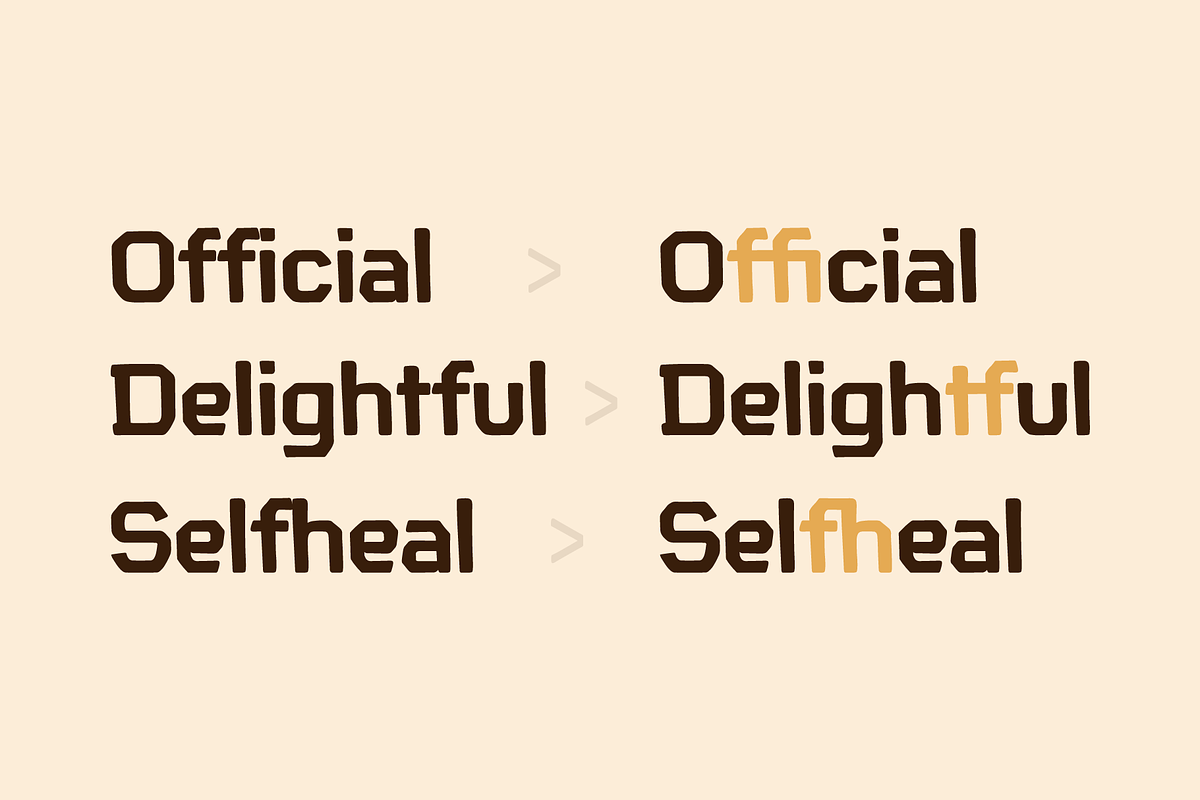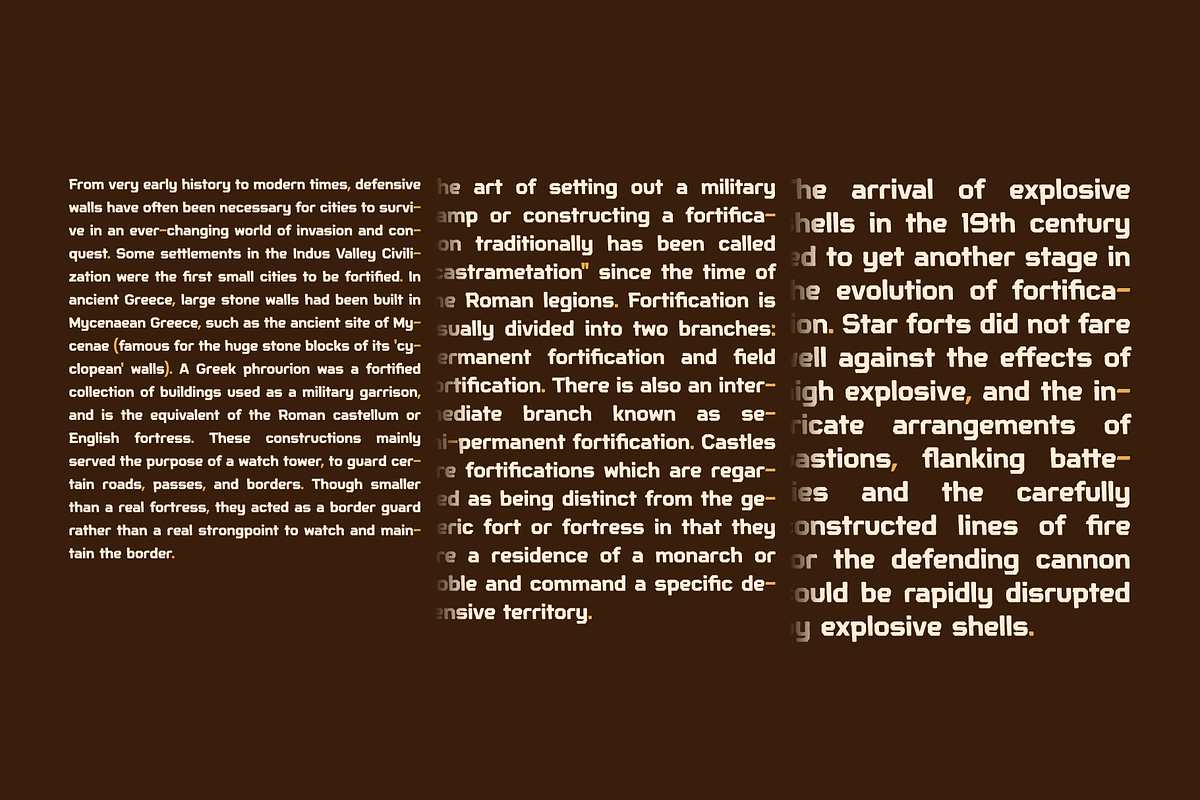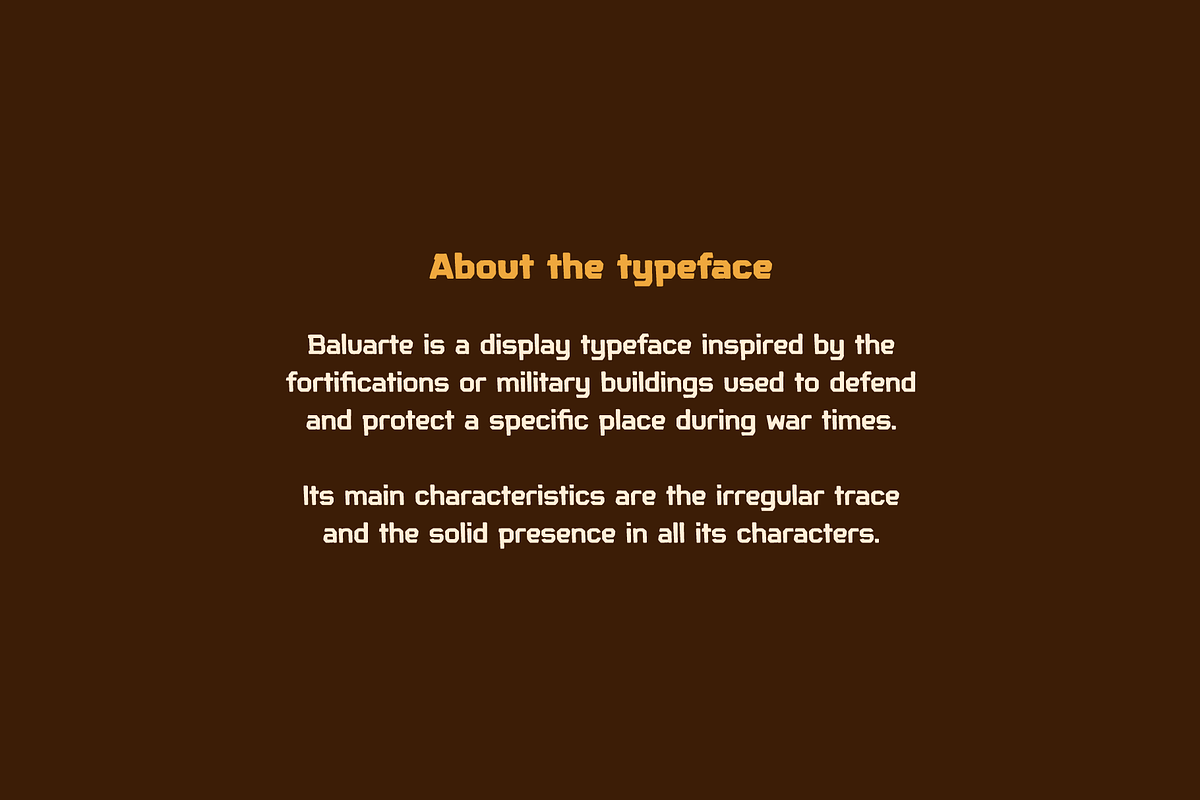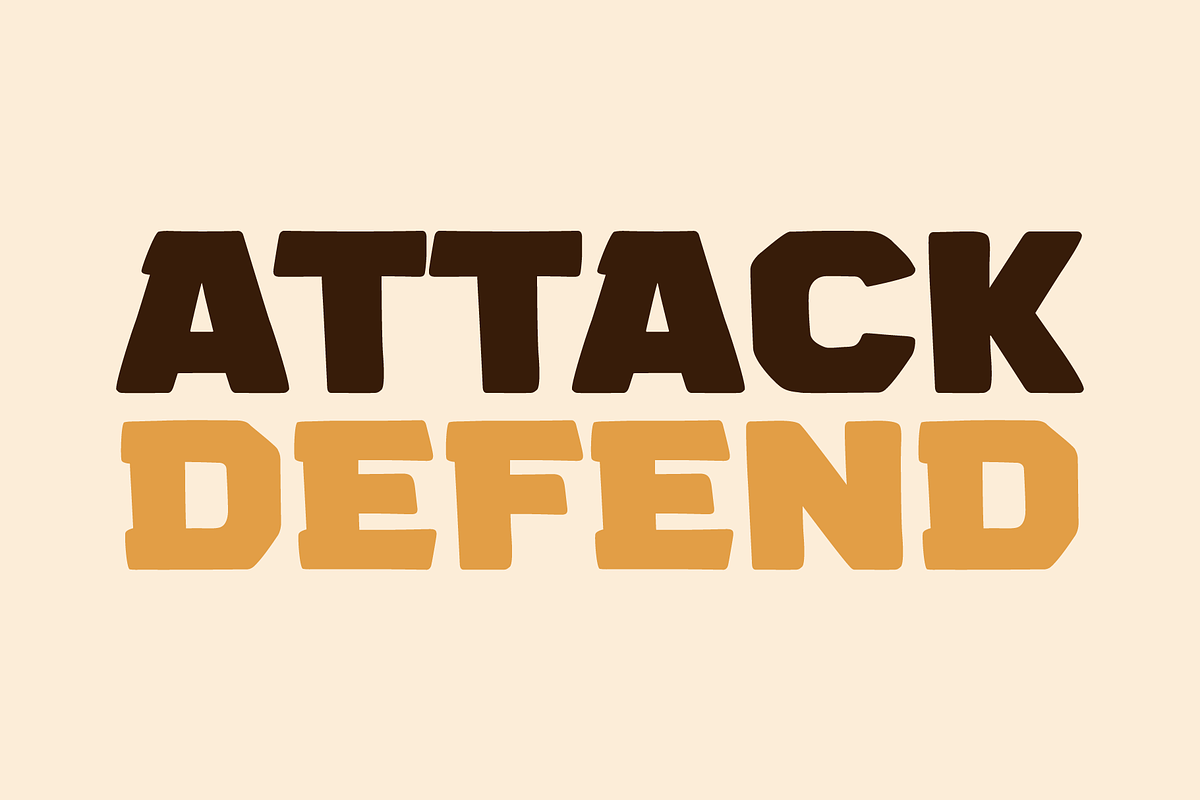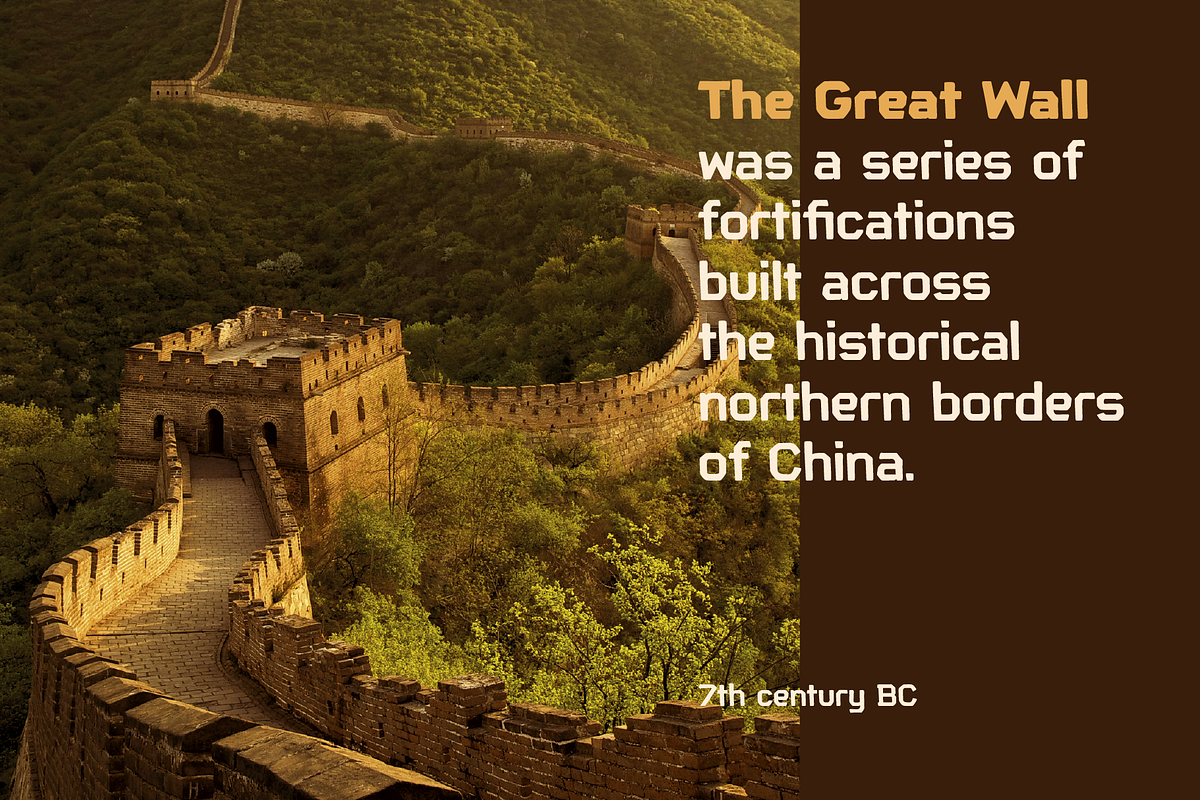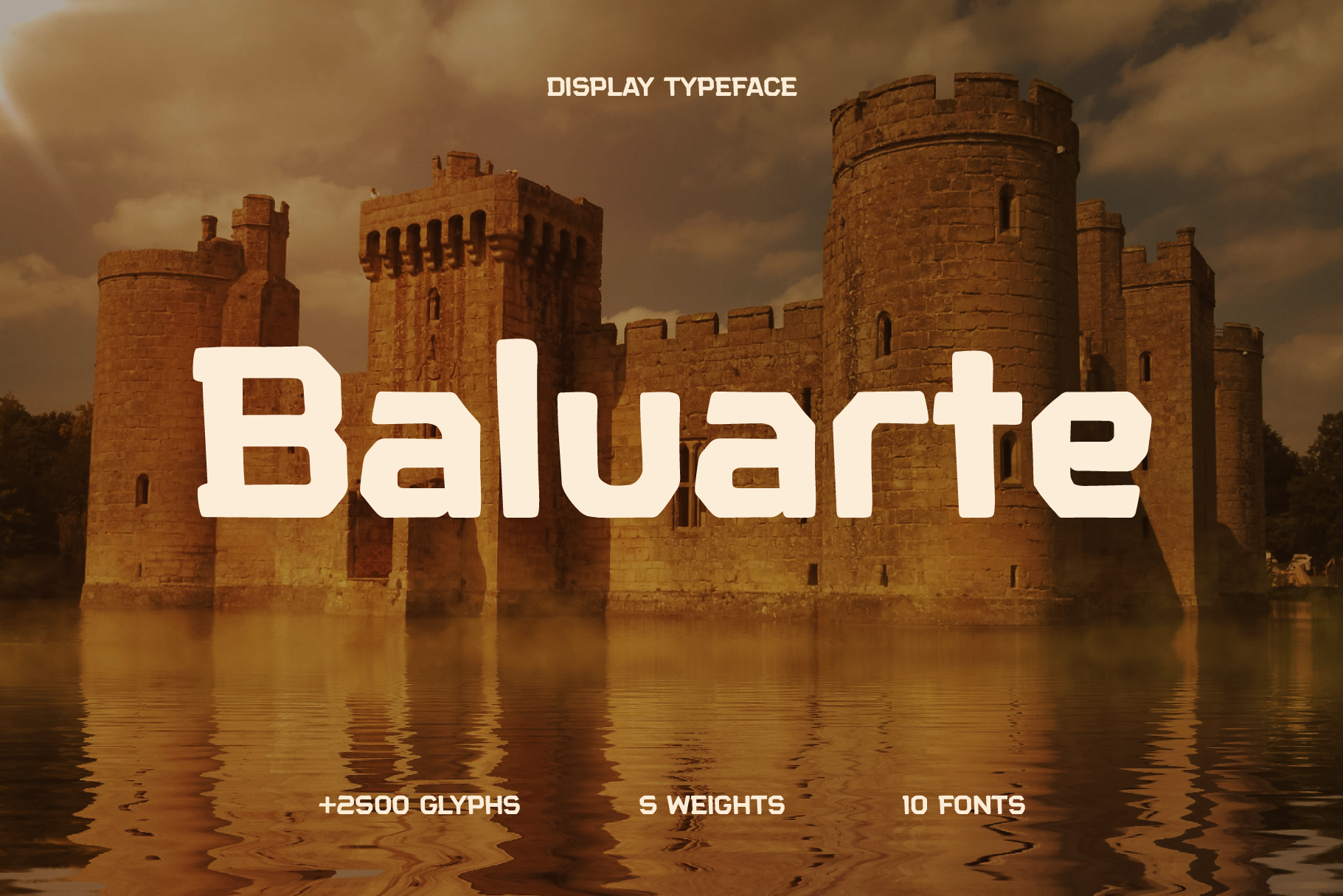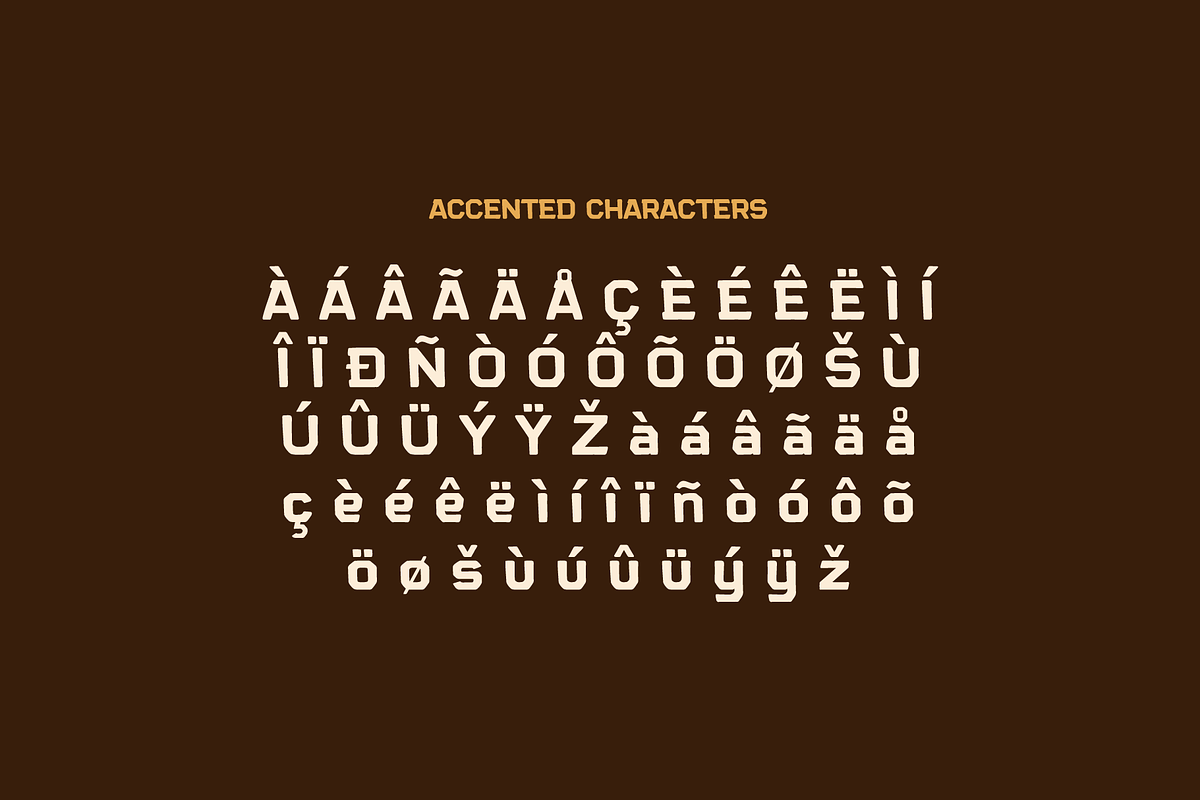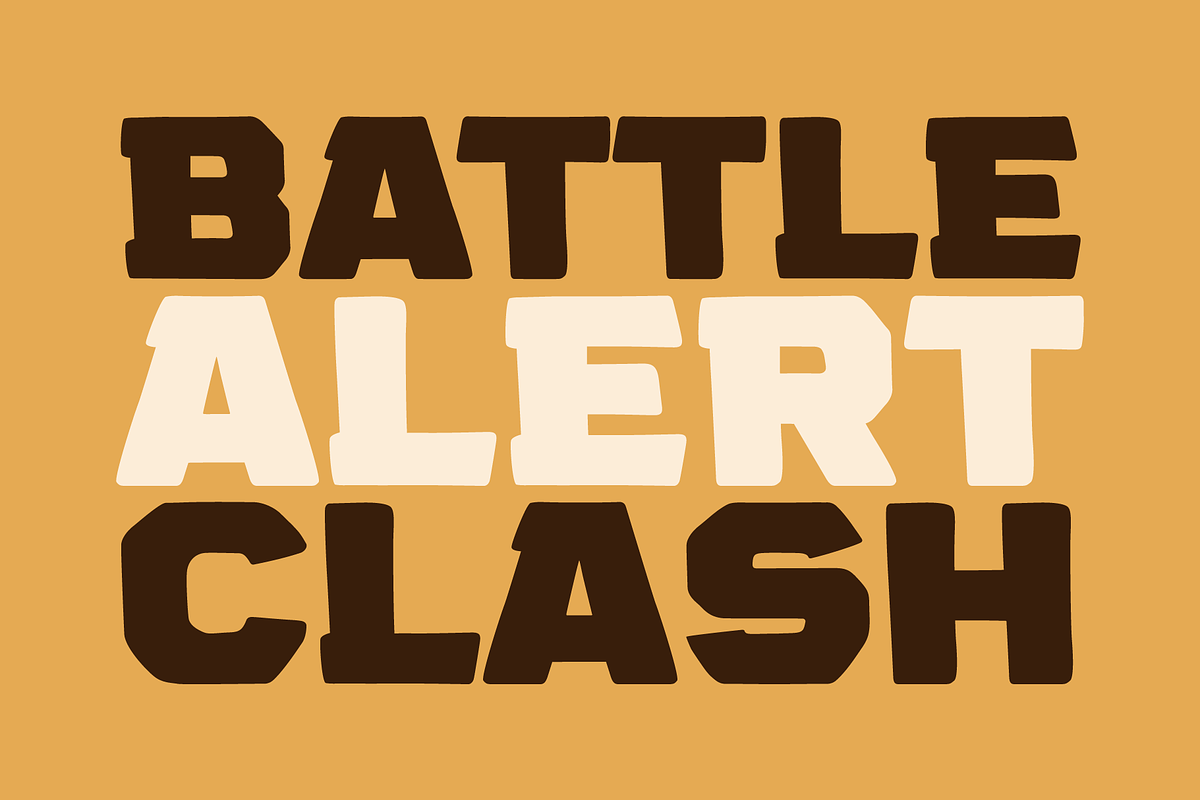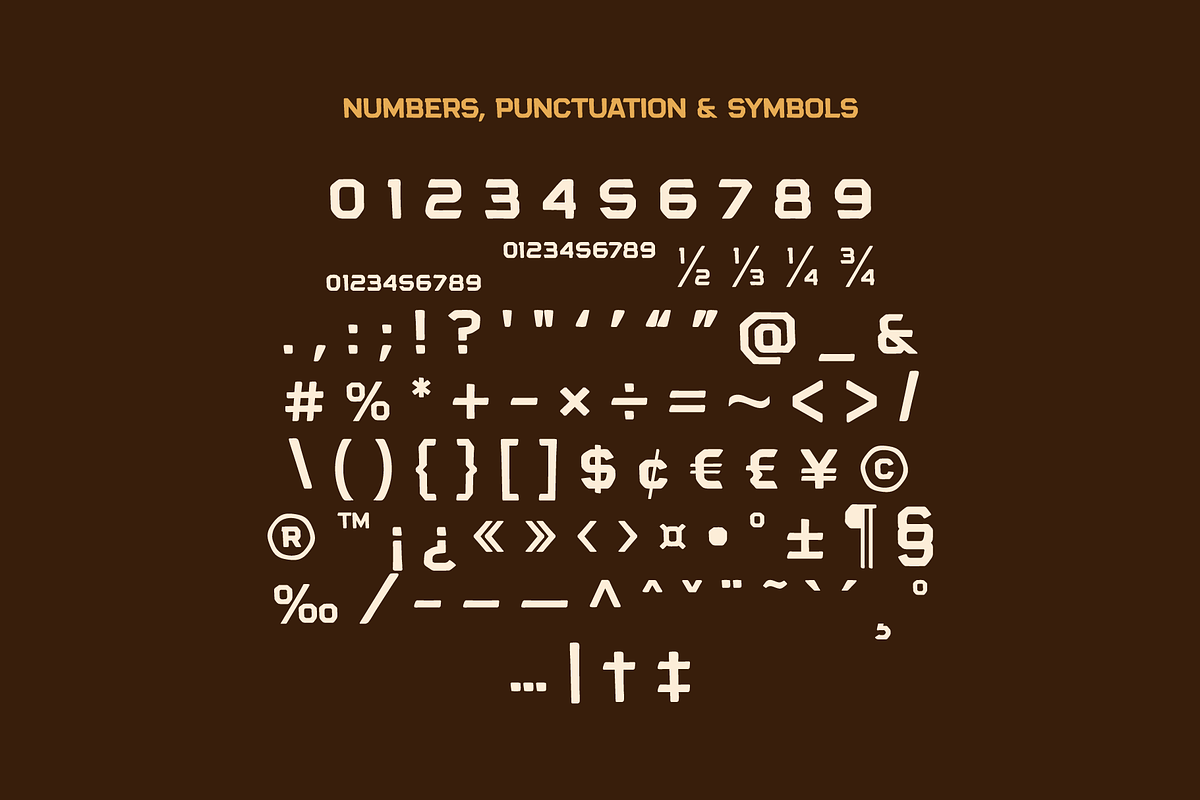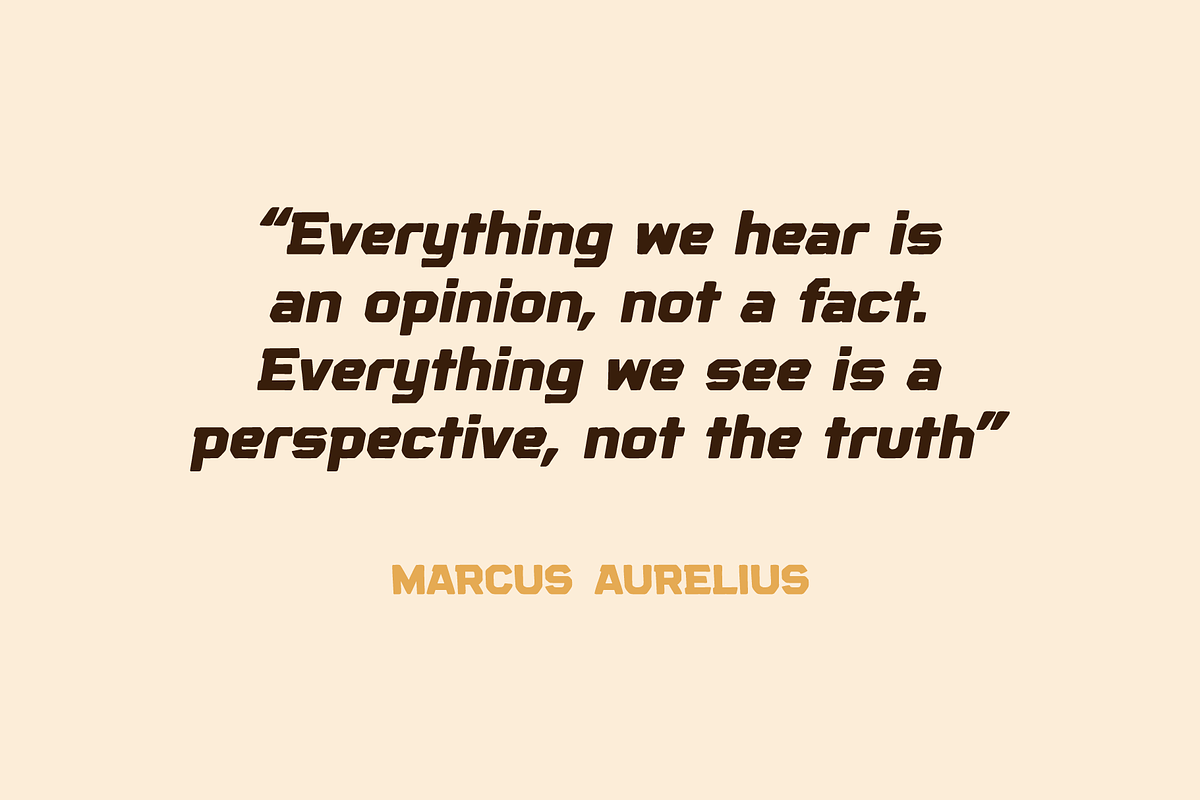
Baluarte Display Typeface
Baluarte is a display typeface inspired by fortifications and military buildings used to defend and protect a specific place during war times.
Its main characteristics are the irregular trace and the solid presence in all its characters.
It has 5 weights + obliques.
It is perfect for titles in big sizes, video game logos, movie titles or credits, posters, and many other visual graphics.
Key features
- Meticulously designed
- Comes in 5 weights and obliques for each weight
- Ligatures and fractions
- Supports a lot of languages